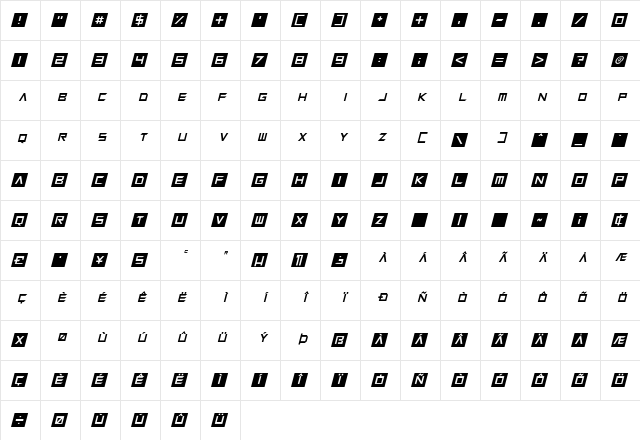
Squaresharps Italic
| Designer | Darrell Flood |
Design Context for Squaresharps Typeface
Squaresharps takes a measured approach to typography — its balanced proportions and neutral character make it a reliable workhorse for both digital and print work. The dynamic lean of this cut emphasises speed and emphasis in any layout.